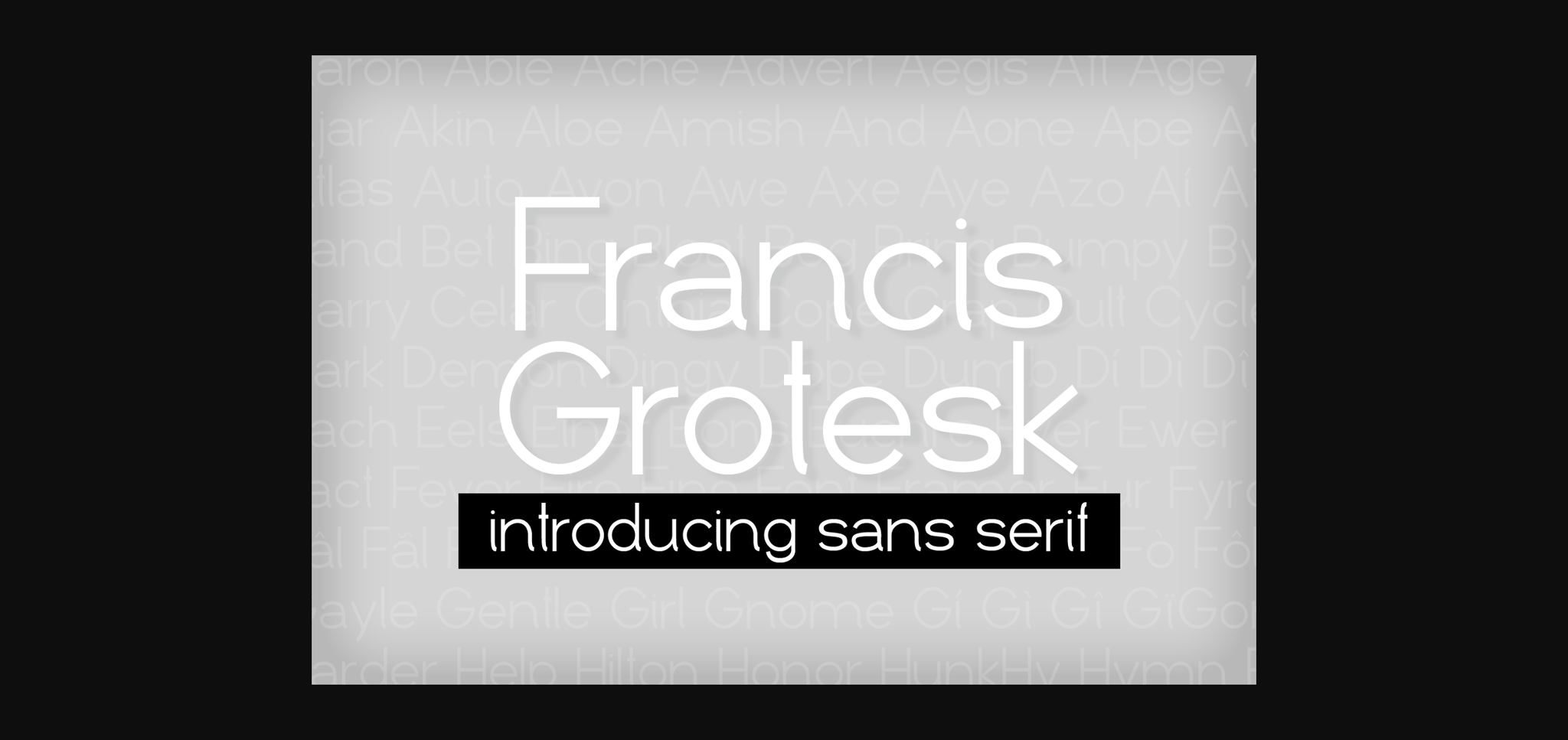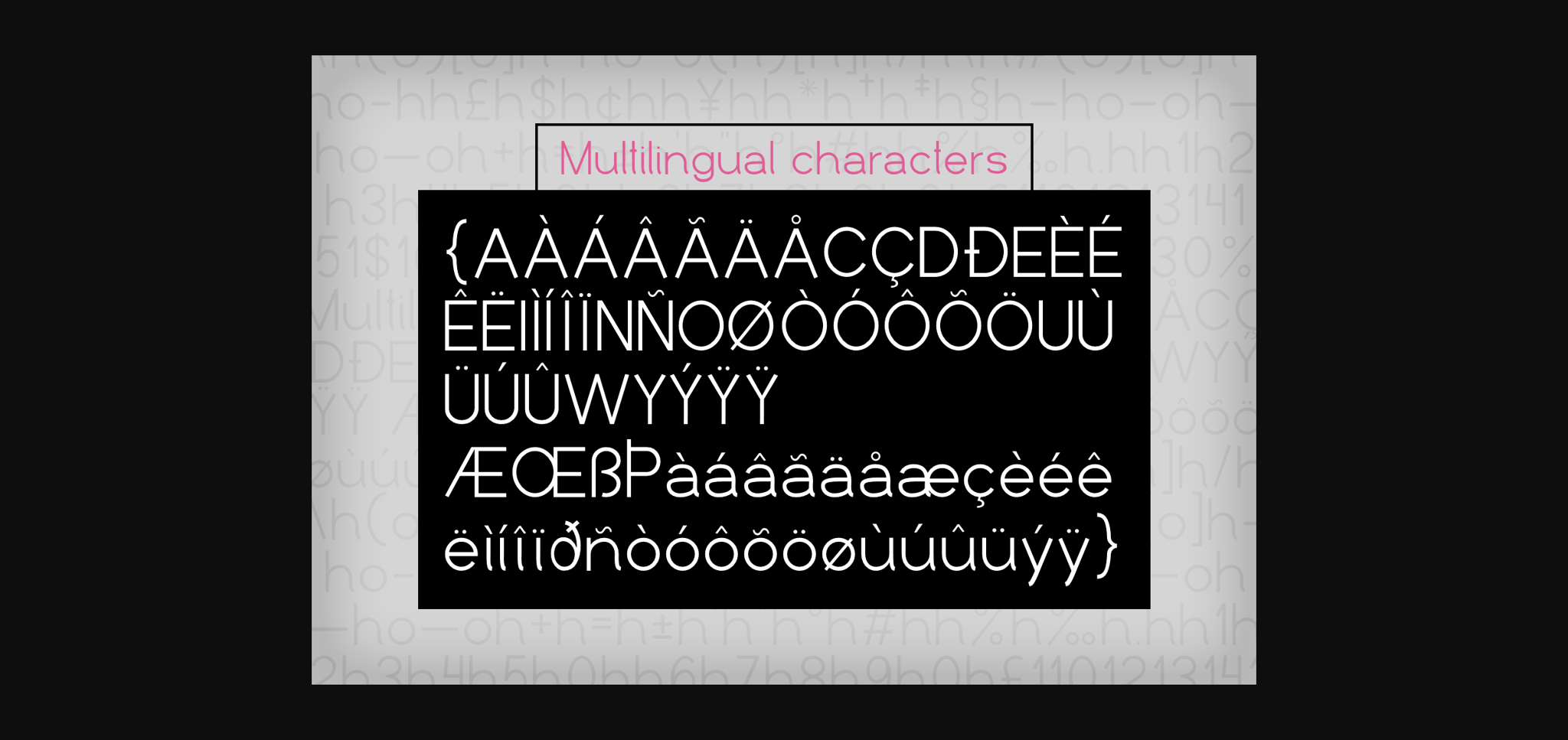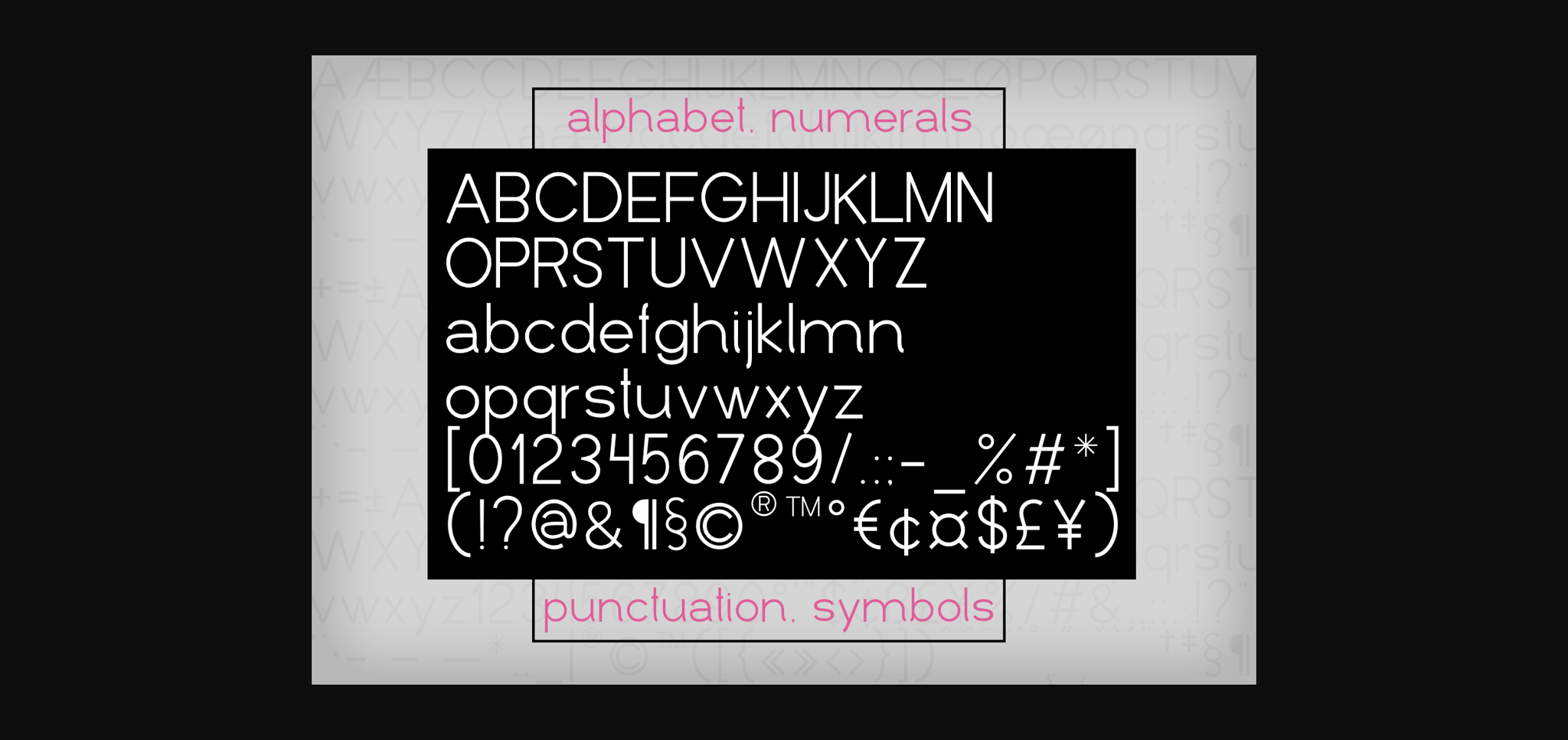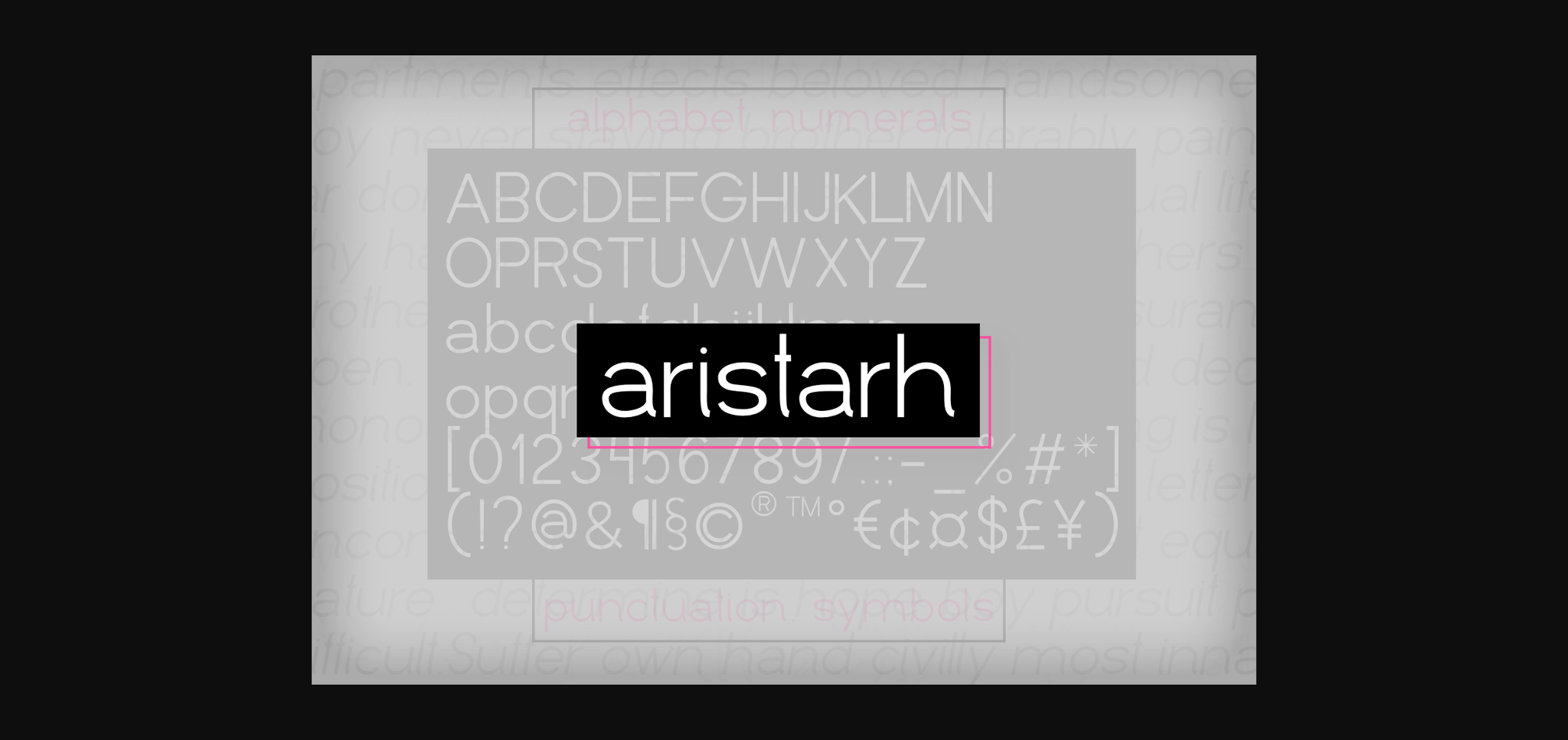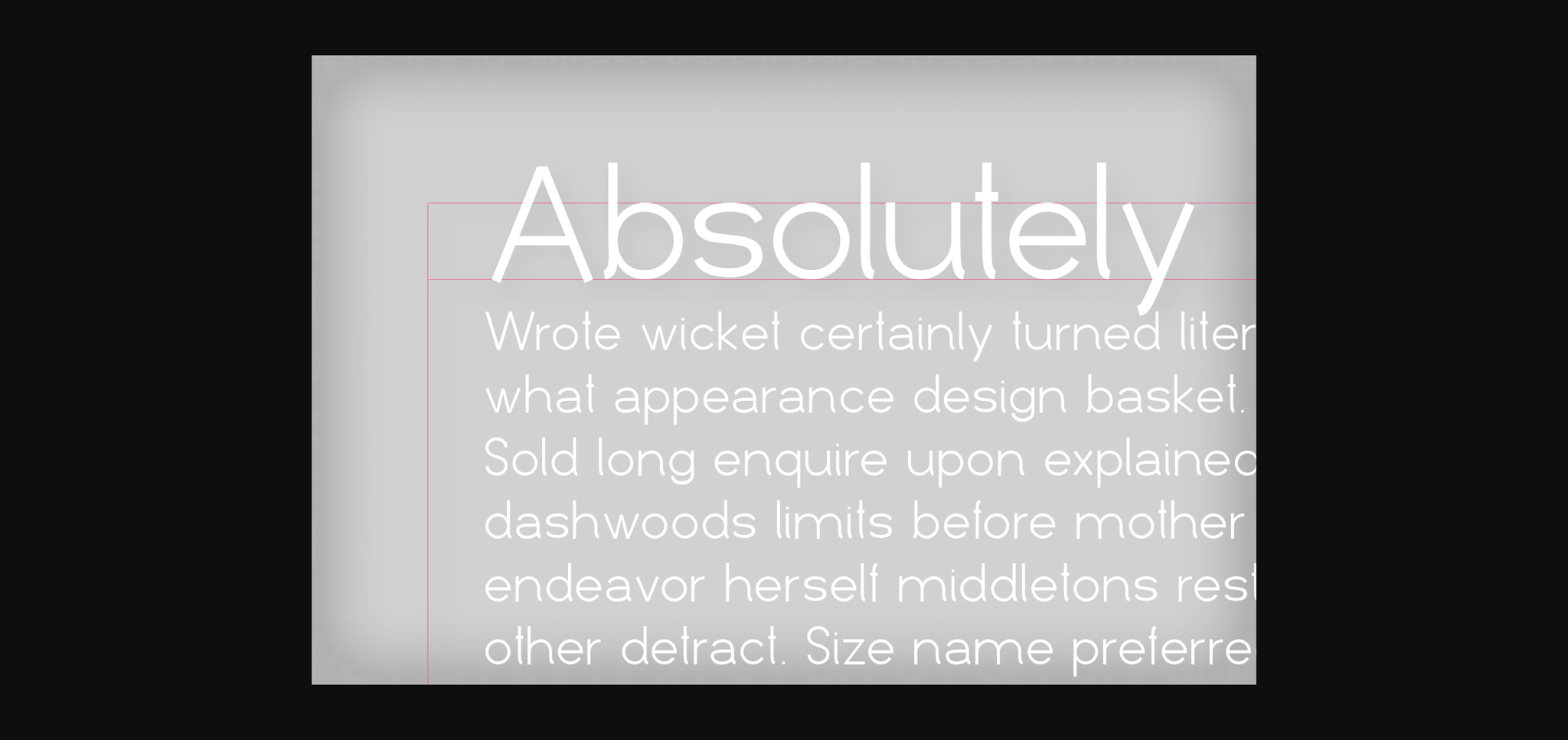
Francis Grotesk Font
About Francis Grotesk Font
Francis Grotesk is a simple and neat sans serif font. Whether you’re using it for crafts, digital design, presentations, or making greeting cards, this font has the potential to become your favorite go-to font, no matter the occasion!